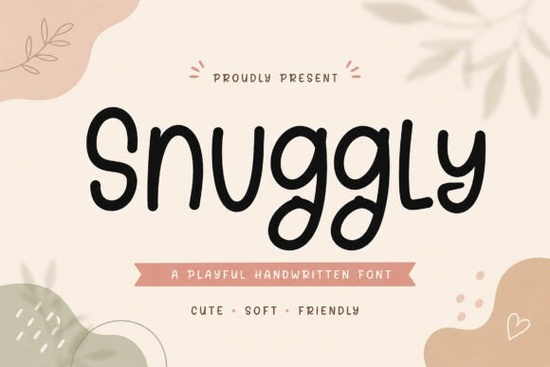
Finding typography that feels warm and inviting can be challenging when you want your designs to connect with people on a personal level. Many script fonts look too formal or messy, but the Snuggly Font offers a balanced solution. It combines the casual look of handwriting with enough structure to remain readable. This makes it a strong choice for creators who want their work to feel handmade without sacrificing clarity. Whether you are designing a logo for a small business or creating decor for a nursery, this typeface brings a soft, friendly personality to the project.
What makes this script feel so personal?
The main appeal of this font lies in its smooth curves and natural strokes. Unlike rigid geometric fonts, it mimics the flow of a real pen on paper. This creates a cozy atmosphere that helps viewers feel more comfortable with your brand or message. The letters are crafted to look approachable, which is essential for industries like childcare, wellness, or handmade goods. When customers see this style, they often associate it with care and attention to detail. It avoids being overly decorative, ensuring that the message stays clear even at smaller sizes.
Readability is often a concern with handwritten styles, but this typeface manages to stay clean. The spacing between characters is consistent, preventing the text from looking cluttered. This is important for packaging labels or social media graphics where space is limited. You can use it for short headlines or longer quotes without losing the charm. The warmth it adds helps transform a standard design into something that feels more human and less corporate.
Which projects benefit from this style?
This typeface shines in projects that require a touch of sweetness and personality. It is particularly effective for branding materials where you want to appear friendly and accessible. For example, a bakery or a boutique shop can use it on logos and business cards to invite customers in. It also works well for print-on-demand merchandise like t-shirts, mugs, and tote bags. The playful nature of the letters makes them popular for kids' products and nursery decor.
Greeting cards and invitations are another great fit. Whether you are making wedding invites or birthday cards, the font adds a celebratory and heartfelt tone. Social media posts also benefit from this style, as it stands out in feeds filled with standard sans-serif text. If you are creating digital planners or stickers, the natural strokes blend well with illustrated elements. Essentially, any project that needs to feel personal and fun can benefit from this typography.
How does it compare to other script options?
When choosing a script, it helps to look at similar options to understand where this one fits. For instance, if you need something with a bit more flair, you might explore the Yolanda Font, which offers a different kind of elegance. On the other hand, if you want something with a summer vibe, the Heatwave Font provides a distinct energetic feel. Each of these has its own personality, but the Snuggly style focuses specifically on warmth and comfort.
For projects that need a more formal touch, you might consider the Calligraphy Capital Font, which brings a classic look to headings. If you prefer something slightly bolder, the Robbin Font is another alternative worth checking out. However, for a balance of cute and clean, the primary focus here remains on the soft curves that define the Snuggly style. Comparing these helps you decide based on the specific mood you want to create.
Quick Checklist for Using This Font
- Pairing: Combine with a simple sans-serif for body text to maintain readability.
- Contrast: Use dark text on light backgrounds to highlight the smooth strokes.
- Testing: Print a sample to check how the curves look on physical materials.
- Spacing: Adjust line height slightly to prevent the ascenders and descenders from touching.
By keeping these tips in mind, you can make the most of this typography in your creative work. It is a versatile tool that adds character without overwhelming the design. Start by experimenting with it on a small project to see how it fits your style.